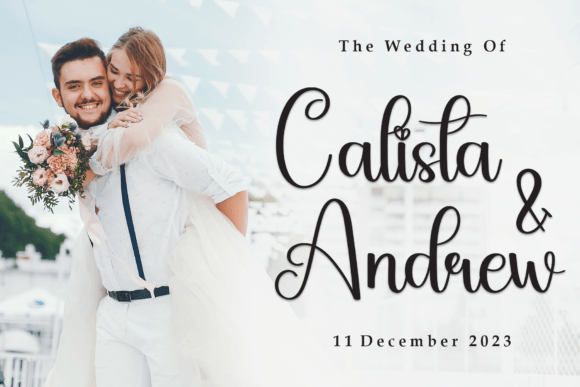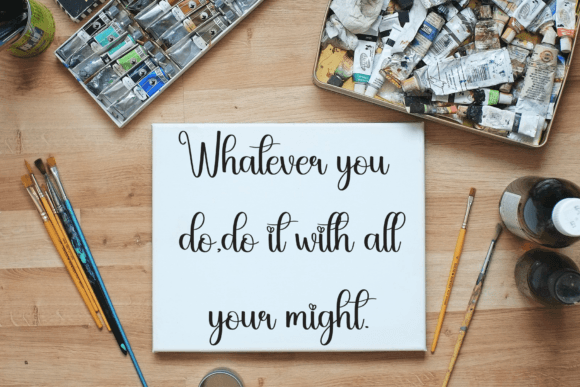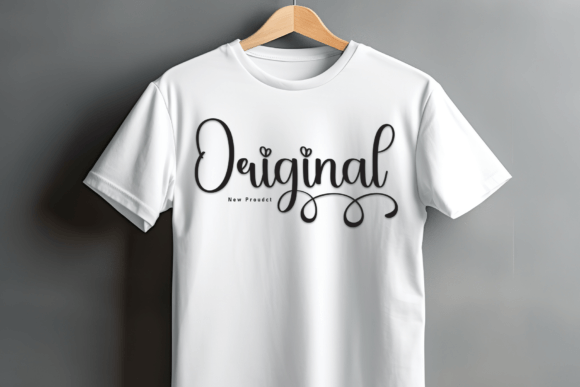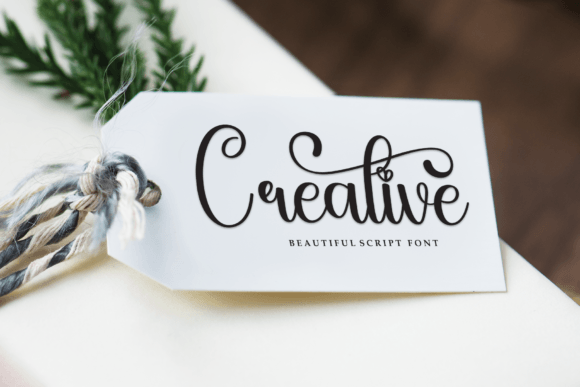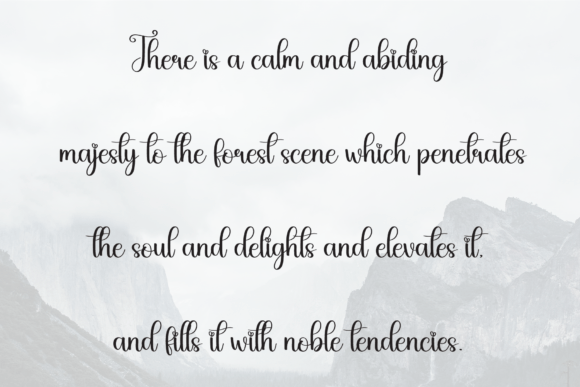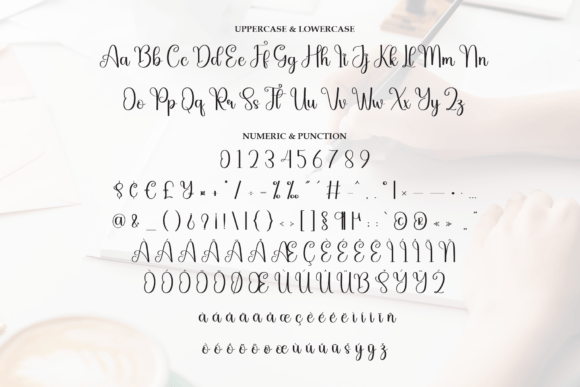
Introducing Agatha Signature Font: Elevate Your Designs with Elegance and Sophistication
In the world of digital design, typography plays a crucial role in conveying the tone and personality of a project. For designers and crafters seeking to add a touch of elegance and sophistication to their creations, Agatha Signature Font is an exceptional choice. This modern and beautiful handwritten font is designed to bring a sense of refinement and charm to a wide range of applications, from invitations and cards to branding and advertising.
The Beauty of Agatha Signature Font
Agatha Signature Font is characterized by its graceful strokes and contemporary style, which combine to create a truly unique and captivating visual experience. The font’s handwritten nature gives it a personal and approachable feel, making it perfect for designs that require a warm and inviting touch. Whether you’re creating wedding invitations, greeting cards, or promotional materials, Agatha Signature Font is sure to impress.
Key Features of Agatha Signature Font
- Modern and Elegant Design: Agatha Signature Font boasts a sleek and sophisticated design that is sure to elevate your projects.
- Handwritten Style: The font’s handwritten nature gives it a personal and charming feel that is perfect for a wide range of applications.
- Graceful Strokes: The font’s smooth and flowing strokes create a beautiful and elegant visual experience.
- Contemporary Style: Agatha Signature Font’s modern design ensures that your projects look fresh and up-to-date.
- Versatile: The font is suitable for a wide range of projects, from invitations and cards to branding and advertising.
Agatha Signature Font is an excellent choice for designers and crafters who want to add a touch of elegance and sophistication to their projects. The font’s versatility and charm make it perfect for:
- Wedding Invitations: Add a touch of romance and elegance to your wedding invitations with Agatha Signature Font.
- Greeting Cards: Create beautiful and heartfelt greeting cards for special occasions with this lovely font.
- Branding and Advertising: Use Agatha Signature Font to create a sophisticated and memorable brand identity.
- Stationery and Packaging: Add a touch of elegance to your stationery and packaging with this beautiful font.
Why Choose Agatha Signature Font?
With so many fonts available, why choose Agatha Signature Font? Here are just a few reasons:
- Unique and Eye-Catching: Agatha Signature Font is a truly unique and eye-catching font that is sure to set your projects apart.
- High-Quality Design: The font is designed to the highest standards, ensuring a beautiful and professional finish.
In conclusion, Agatha Signature Font is an exceptional choice for designers and crafters seeking to add a touch of elegance and sophistication to their projects. With its modern and beautiful design, graceful strokes, and contemporary style, this font is perfect for a wide range of applications. Whether you’re creating invitations, cards, or promotional materials, Agatha Signature Font is sure to impress. So why wait? Download Agatha Signature Font today and elevate your designs to new heights!